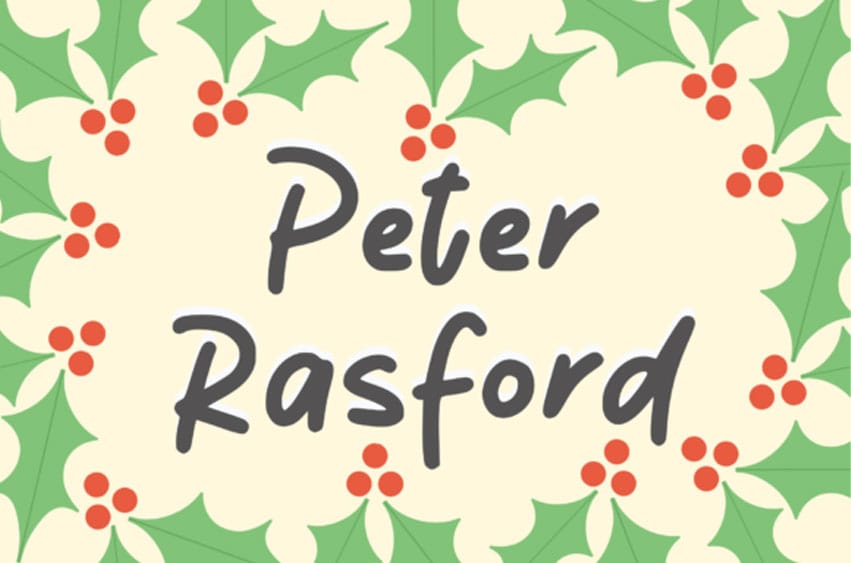
Peter Rashford Font is a cool and trendy-looking handwritten font.
Whatever the topic, this font will be a wonderful asset to your font library, as it has the potential to enhance any creation.